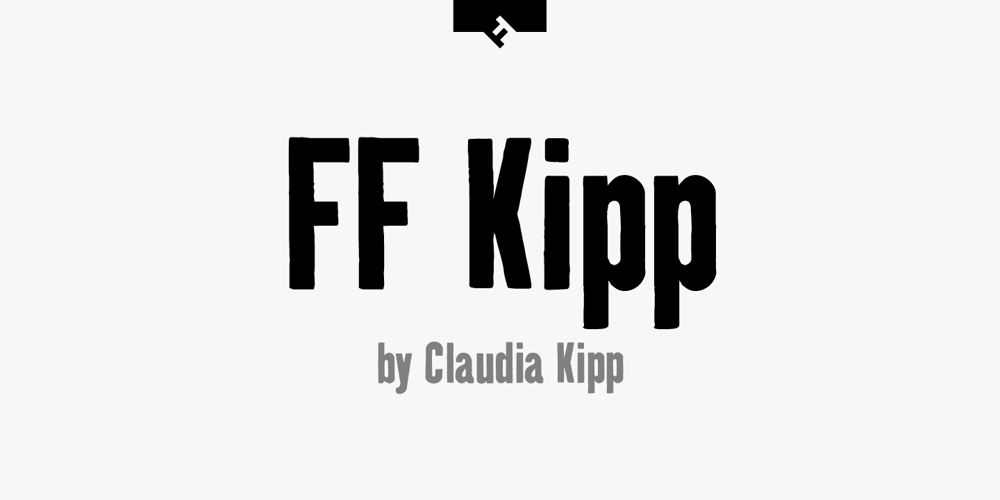
FF Kipp
FF Kipp font
FF Kipp Font Family was designed by Claudia Kipp and published by FontFont. FF Kipp contains 7 styles and family package options. 0 Kipp “German type designer Claudia Kipp created this display and sans FontFont in 1993. The family has 7 weights, and is ideally suited for film and tv and music and nightlife. FF Kipp provides advanced typographical support with features such as ligatures and case-sensitive forms. It comes with proportional lining, tabular lining, and proportional oldstyle figures.